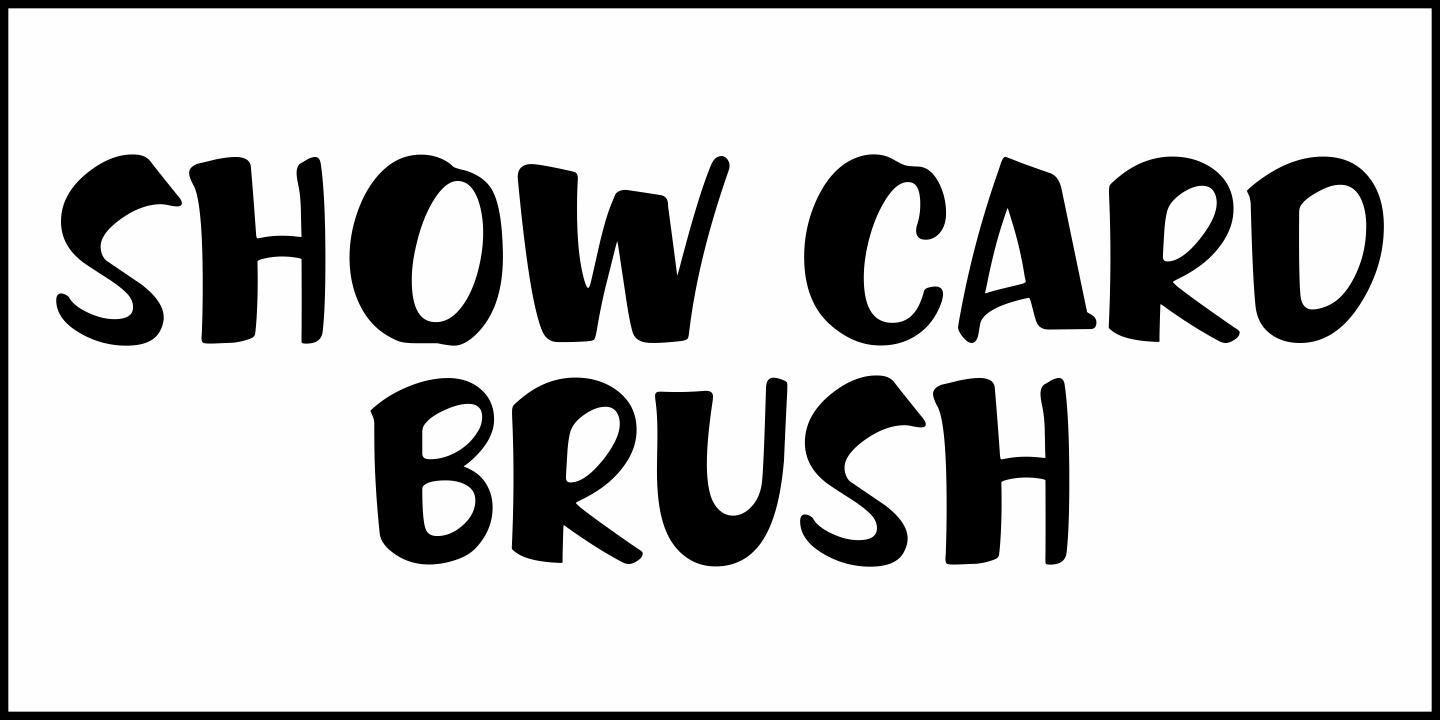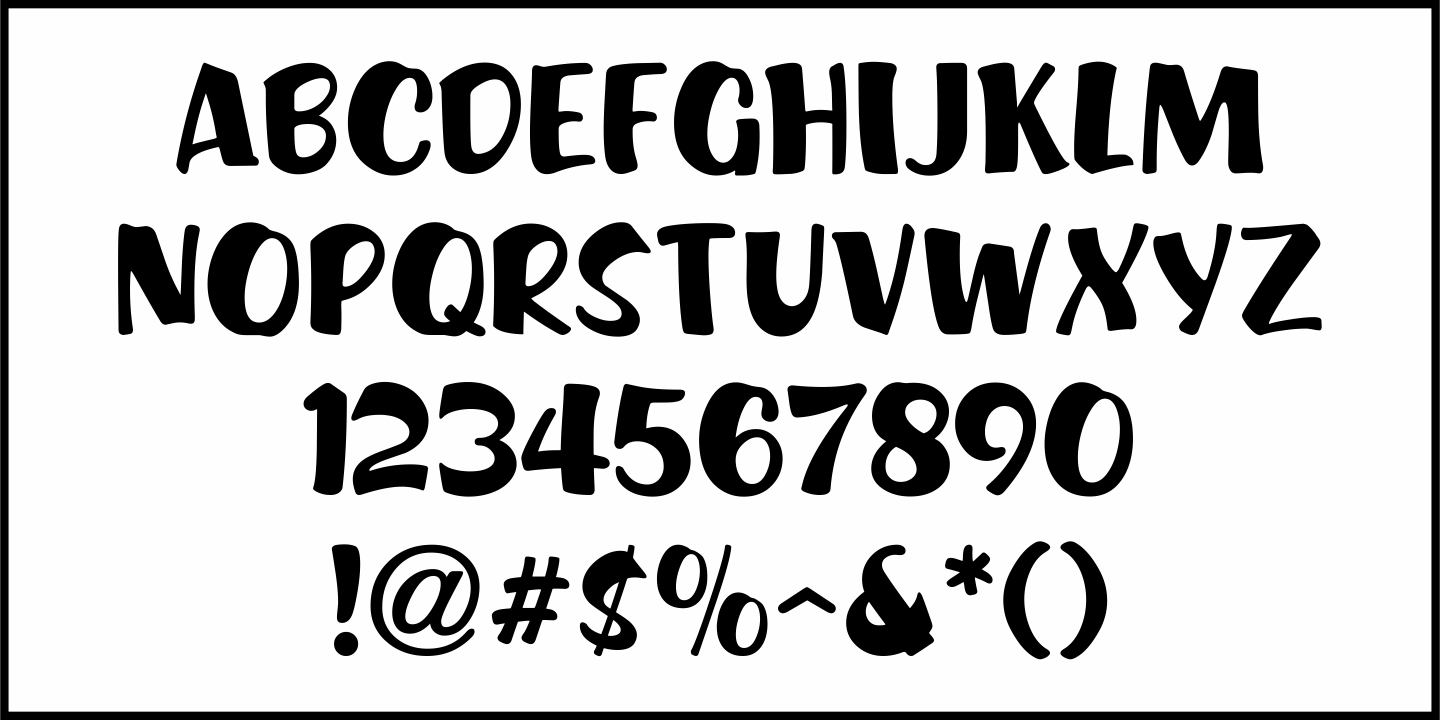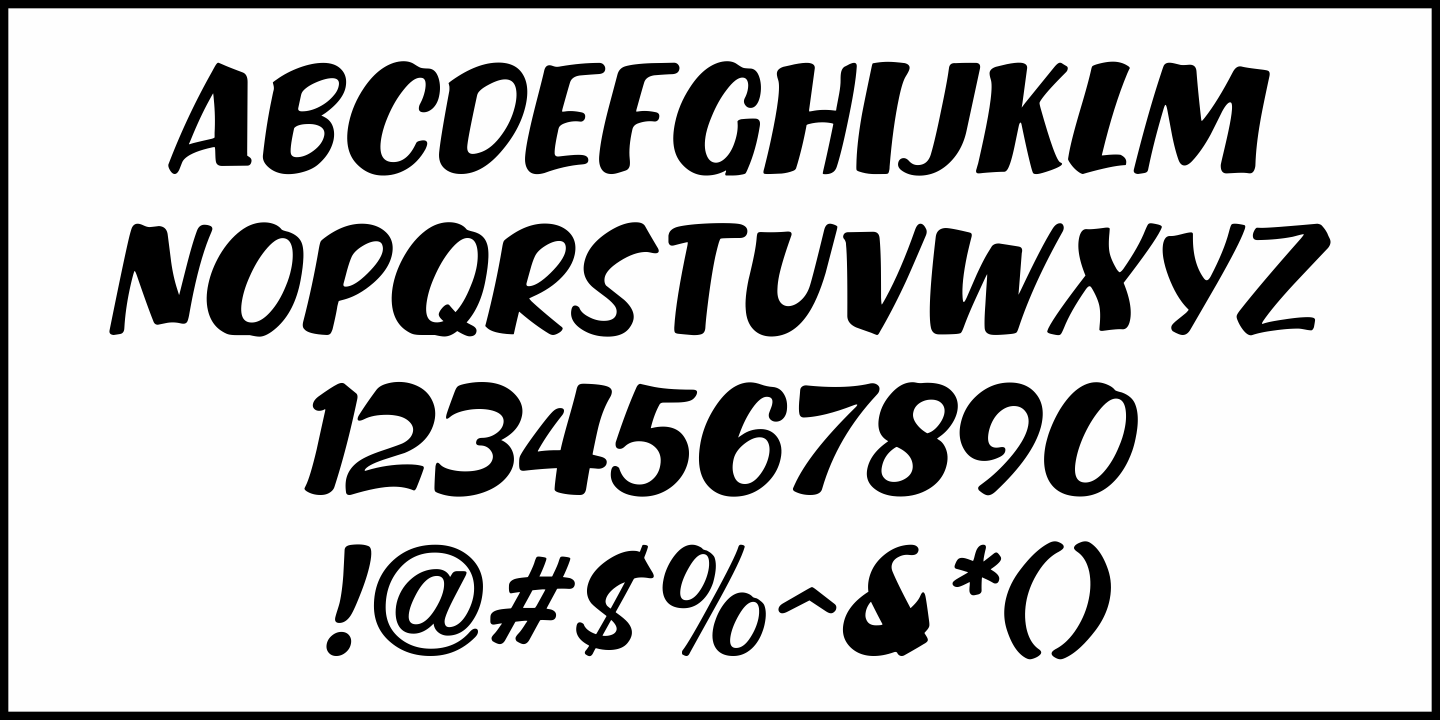
Show Card Brush
A movie poster for the 1952 Dean Martin & Jerry Lewis comedy 'Sailor Beware' had the text rendered in a casual style of brush lettering similar to that found on store show cards.
This inspired Show Card Brush JNL, which is available in both regular and oblique versions.